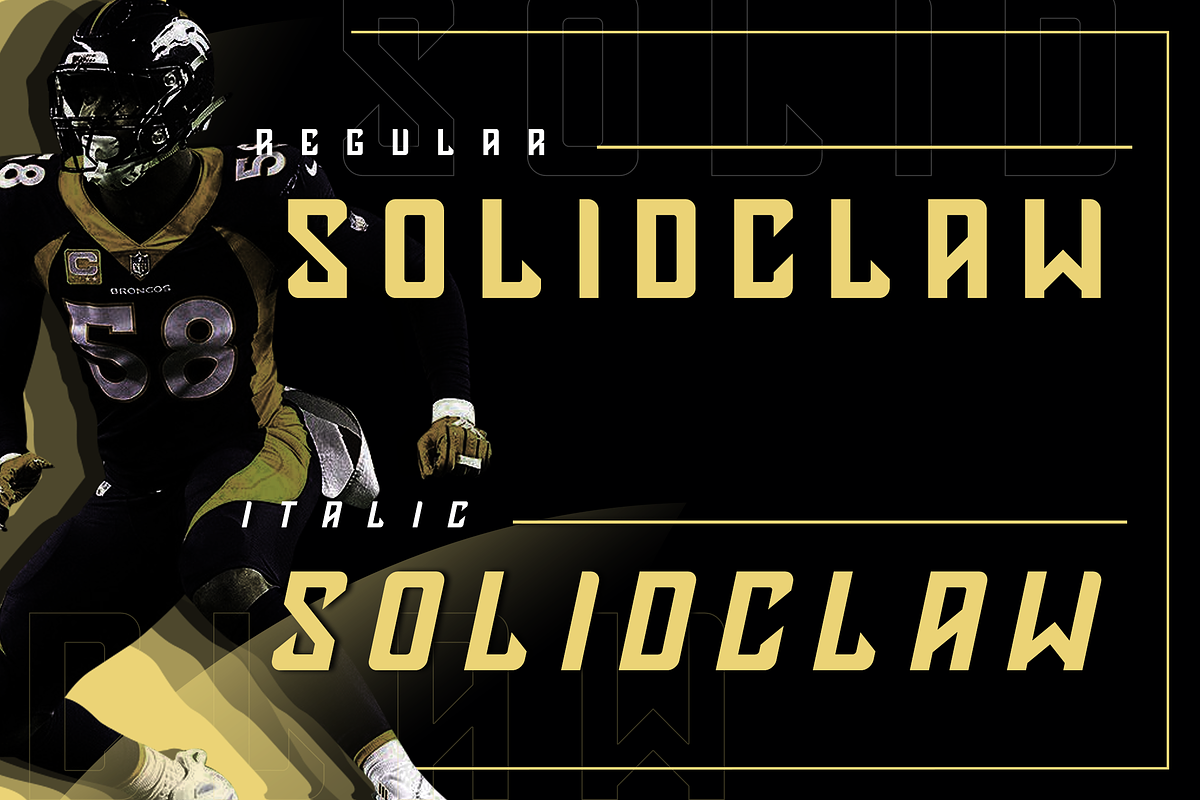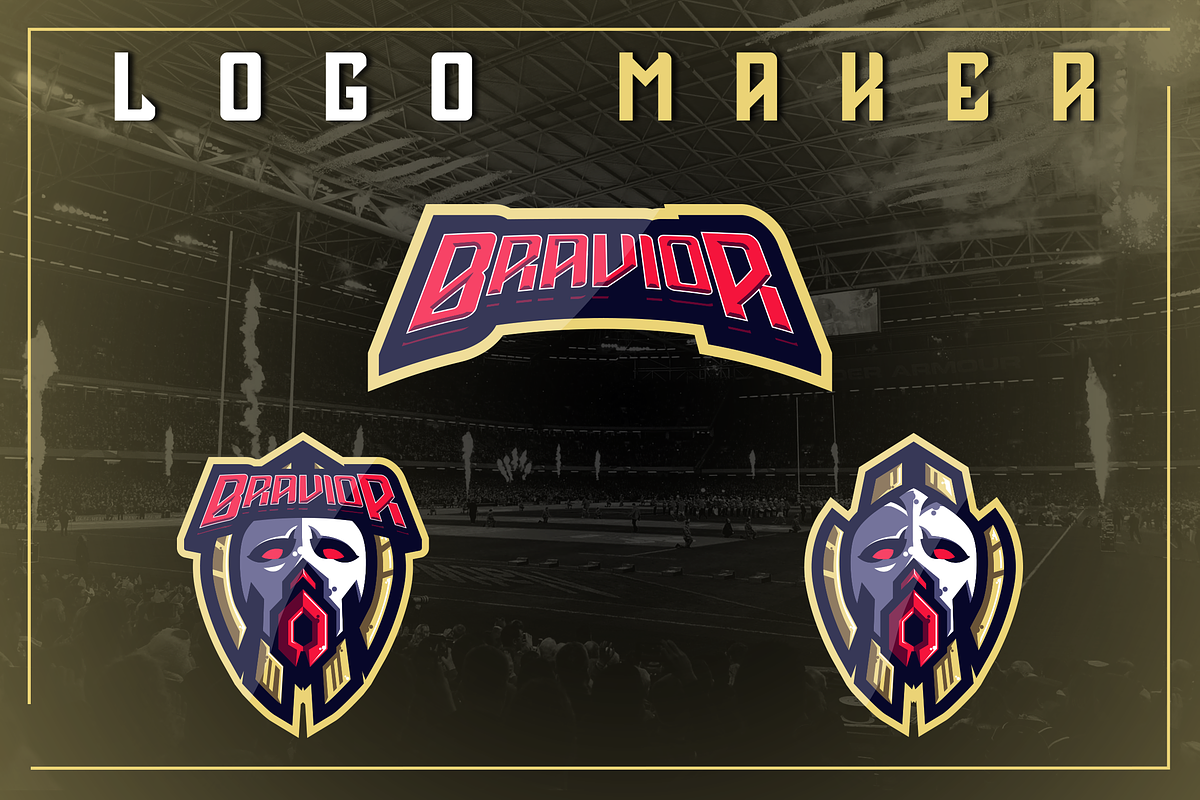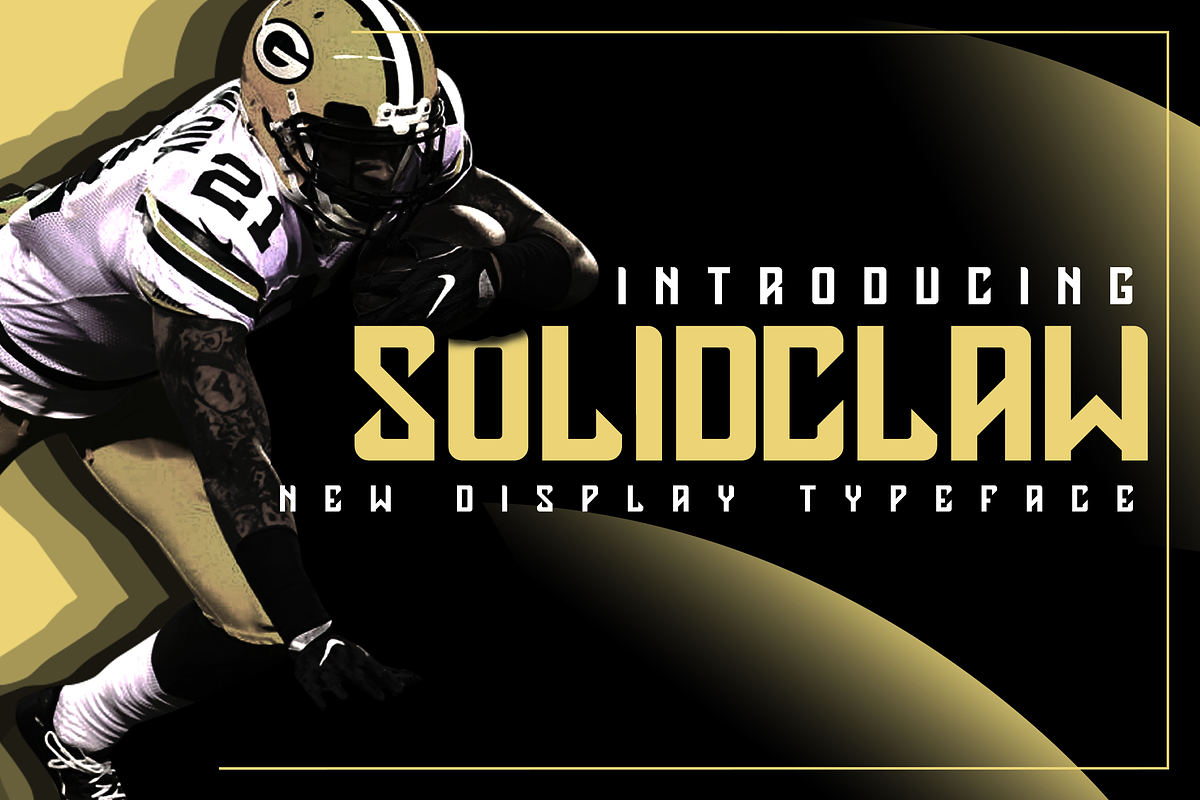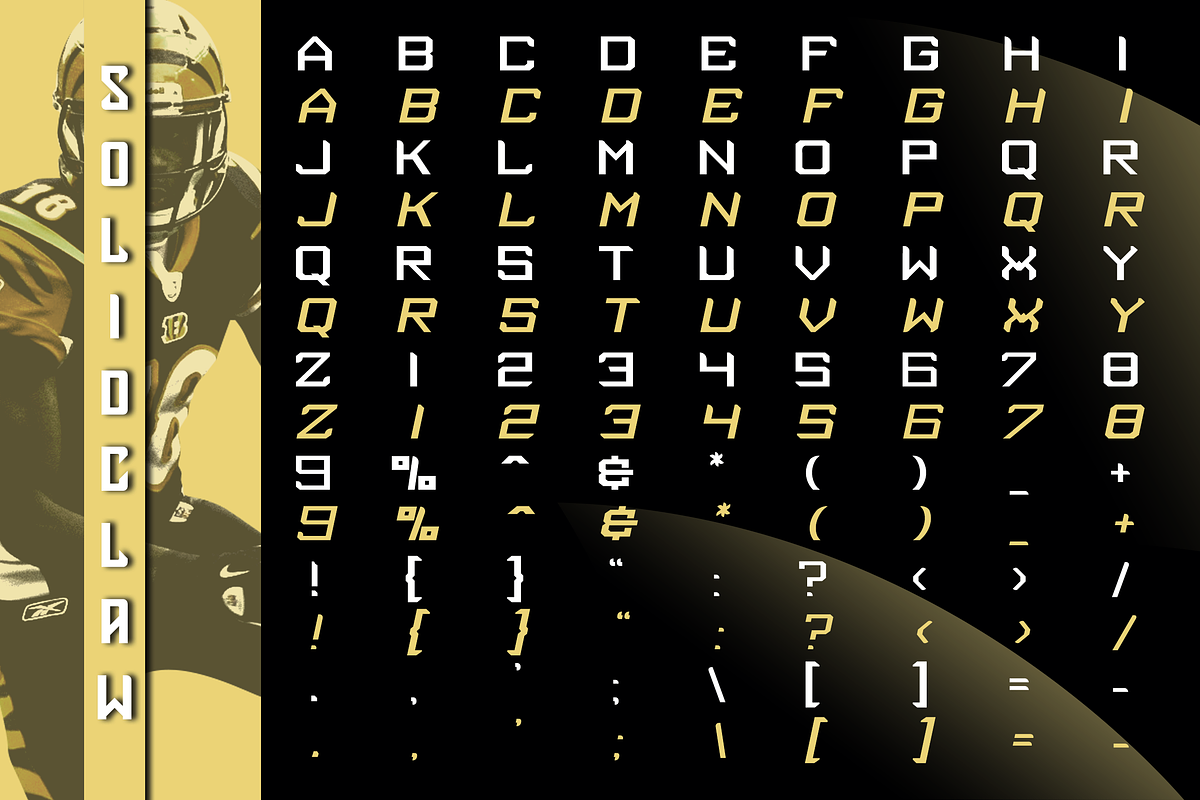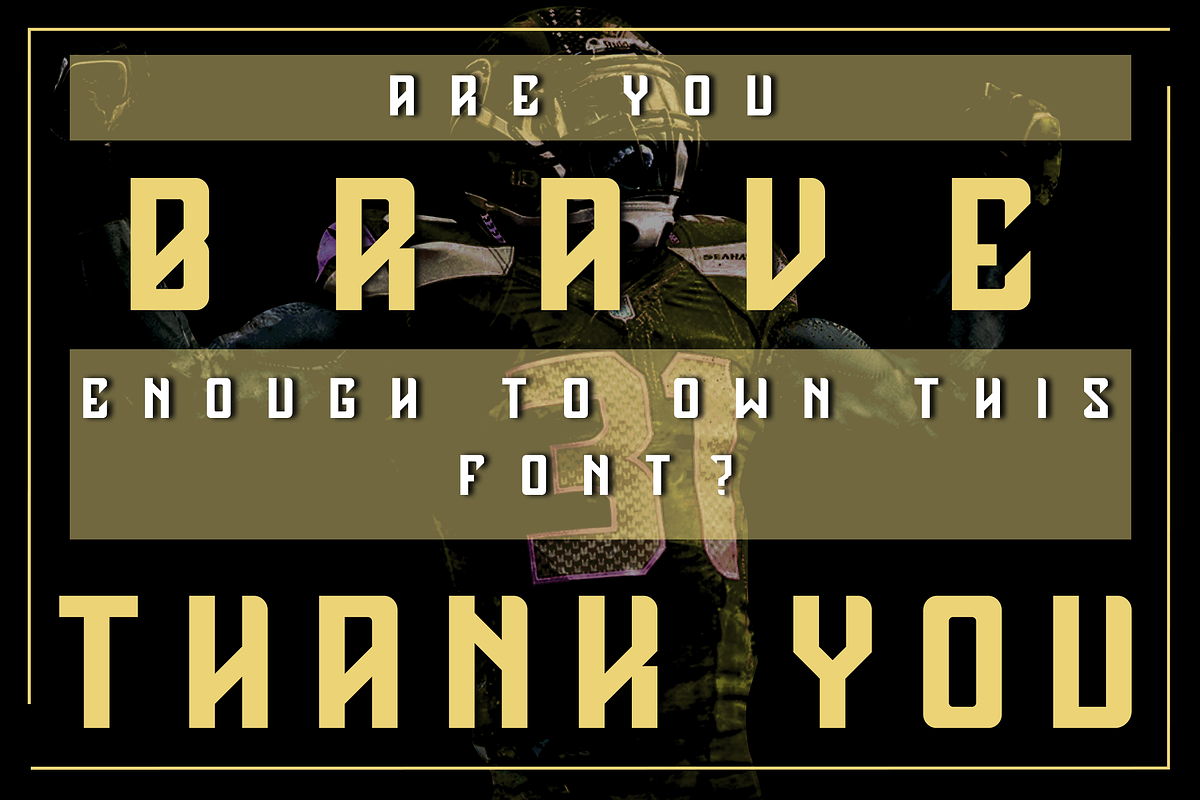
Solidclaw Display Font
SolidClaw Display font, is our new item that suitable for your team logo, or community logo.
Great for Logo, Sticker, Jersey, Invitation Card, Brochure, etc.
Why Solidclaw Display Font is worth a look
Solidclaw Display Font by Haws.std fits naturally into Branding, posters, packaging, typography.